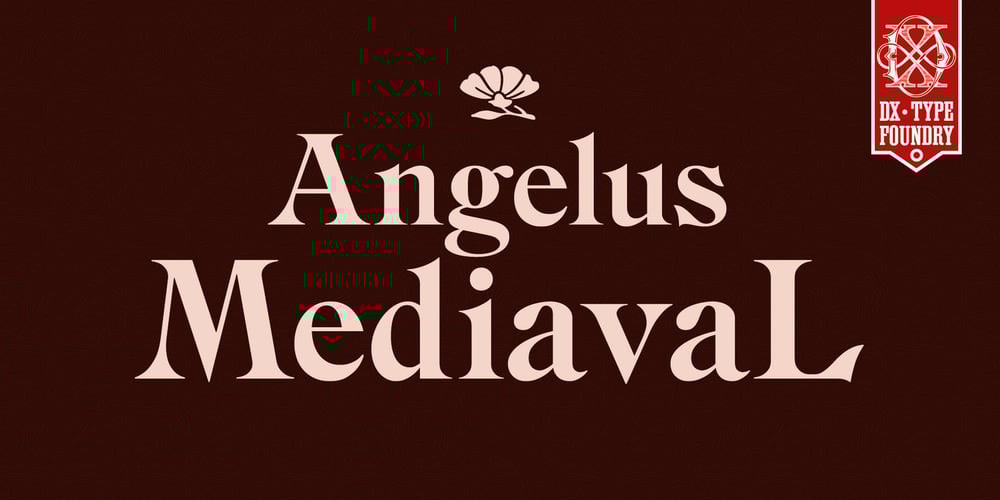
DXAngelus Mediaval Font Family was designed by Dmitriy Horoshkin and published by DXTypefoundry. DXAngelus Mediaval contains 1 styles and family package options. The font DXAngelusMediaval was developed on the basis of the Angelus Mediaval font, which was issued by Russian type foundry from the beginning of the 20th century (type foundry of G. Bertgold, St. Petersburg and Moscow, before 1904). Probably, the font is a reworking of the DeVinne font (1892 (?), Designer Nicholas J. Werner) of the American Central Type Foundry. For the reconstruction, we used examples of font prints: Cyrillic from the catalog “Art Fonts”, 1929, Latin part – Chicago font, from the catalog “La Fonderie Typographique Francaise” (FTF) 1924. In addition, in the font are available Digits of the old style and ligature.